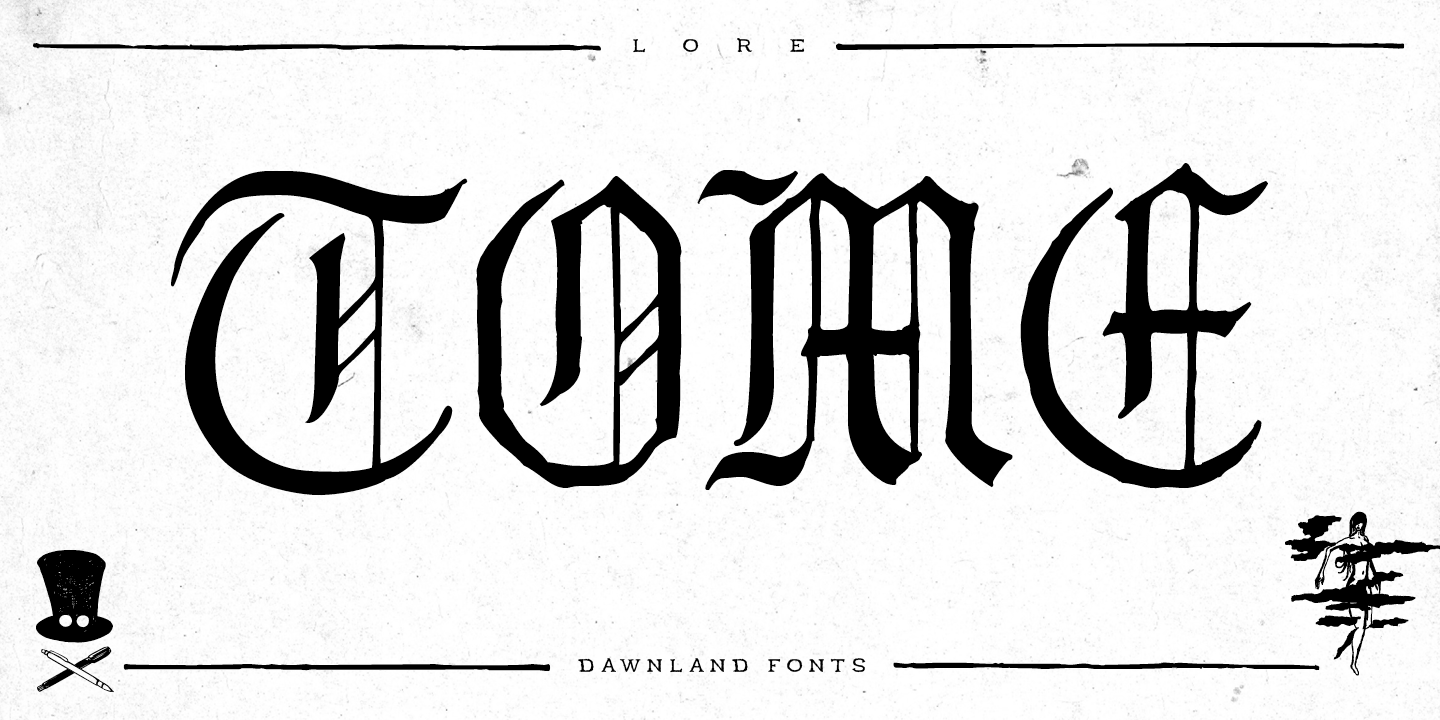
Lore is a blackletter font family. This typeface has six styles and was published by Dawnland.
Lore - A handwritten Old English font for past, present & future Tomes, Bibles & Grimoires!
Lore comes in 3 variants x 2 (regular & hollow) with different upper case letters:
Nokturnia - ordinary
Pandemonia - fiery swirls and curls
Nekromantea - straight and harsh.
The hollow versions, preferably used for headlines and display text, are the original hand drawn versions with more anchor points and intentional uneven line work.